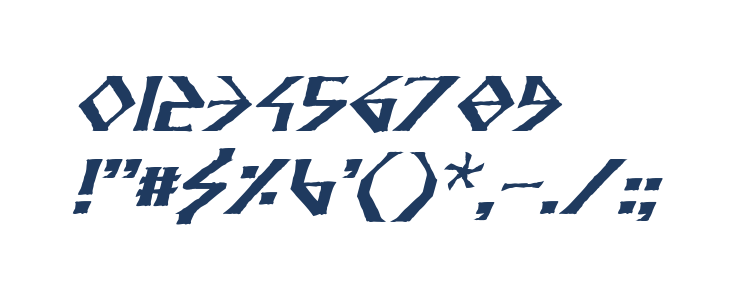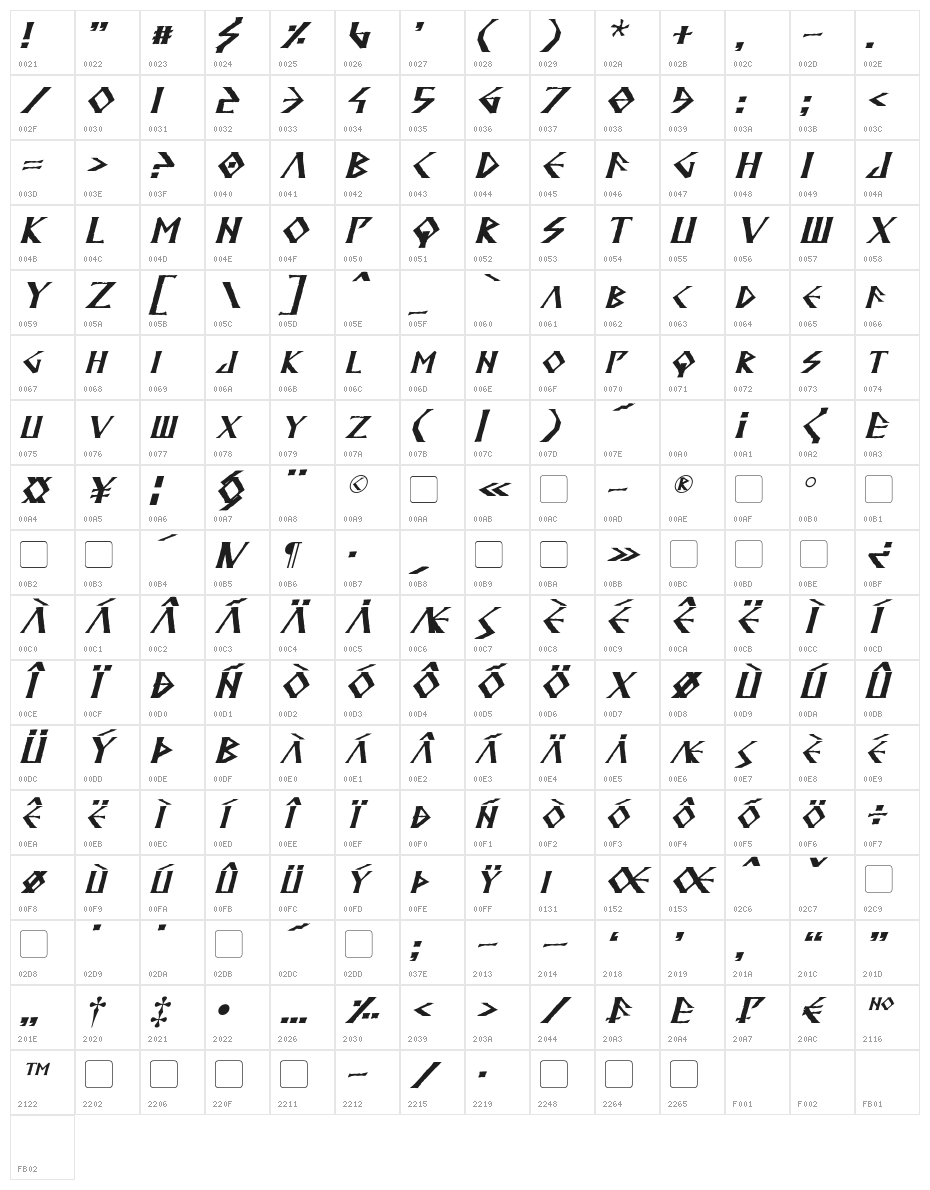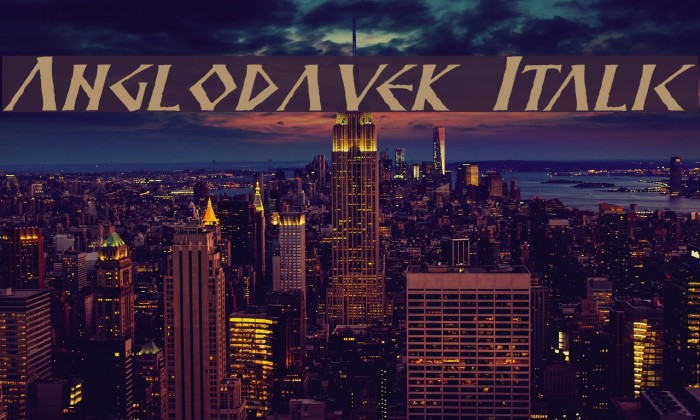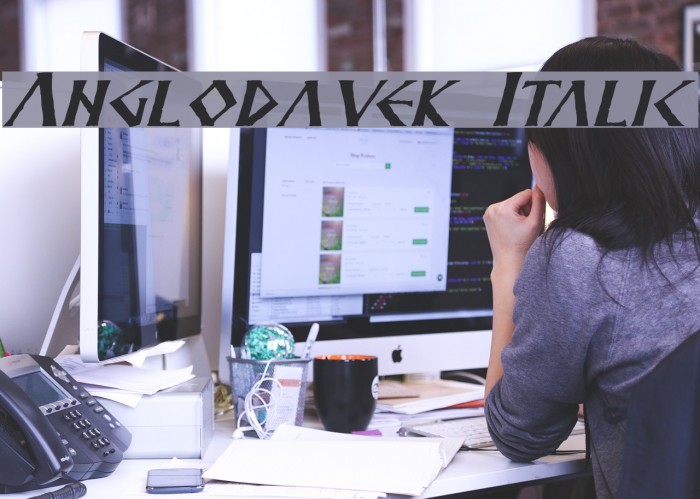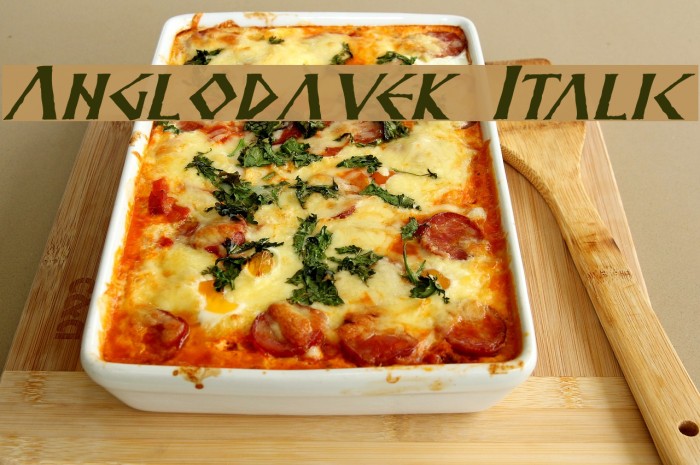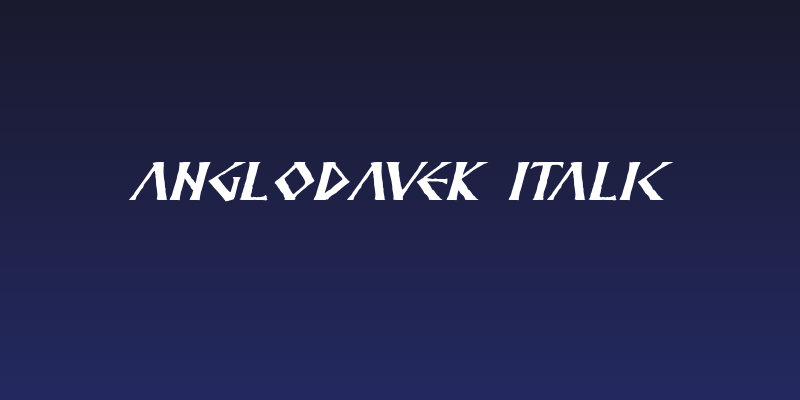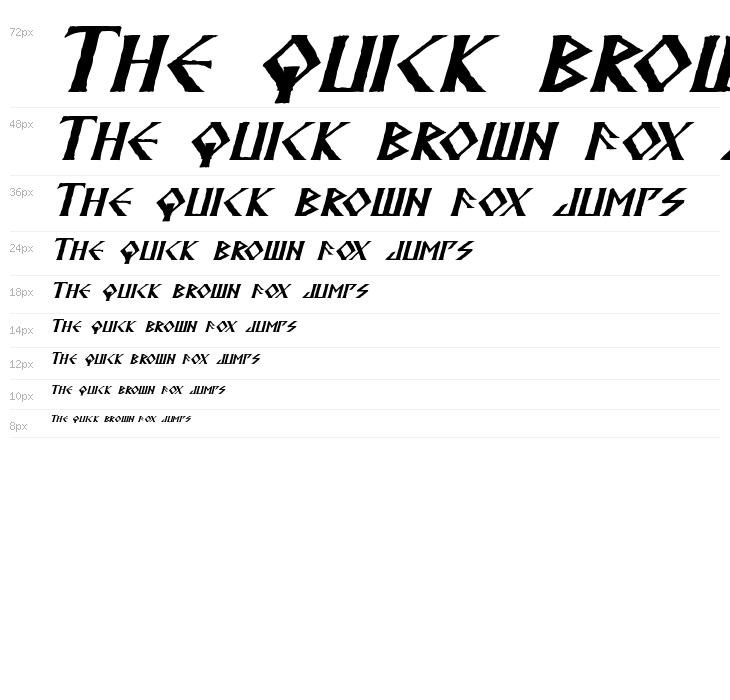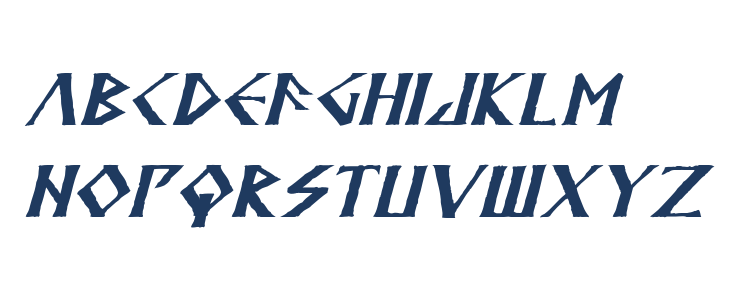
Anglodavek Italic Font
Anglodavek Italic Description
This font features a bold, angular design with sharp edges and a dynamic, italicized slant. The characters are crafted with a sense of movement and aggression, making them stand out with a unique, edgy appearance. The uppercase and lowercase letters maintain a consistent style, with each character exhibiting a distinct geometric form. The numbers and special characters follow the same angular theme, ensuring uniformity across the font. This design is particularly striking due to its high contrast in stroke thickness, which adds to its bold and impactful look.